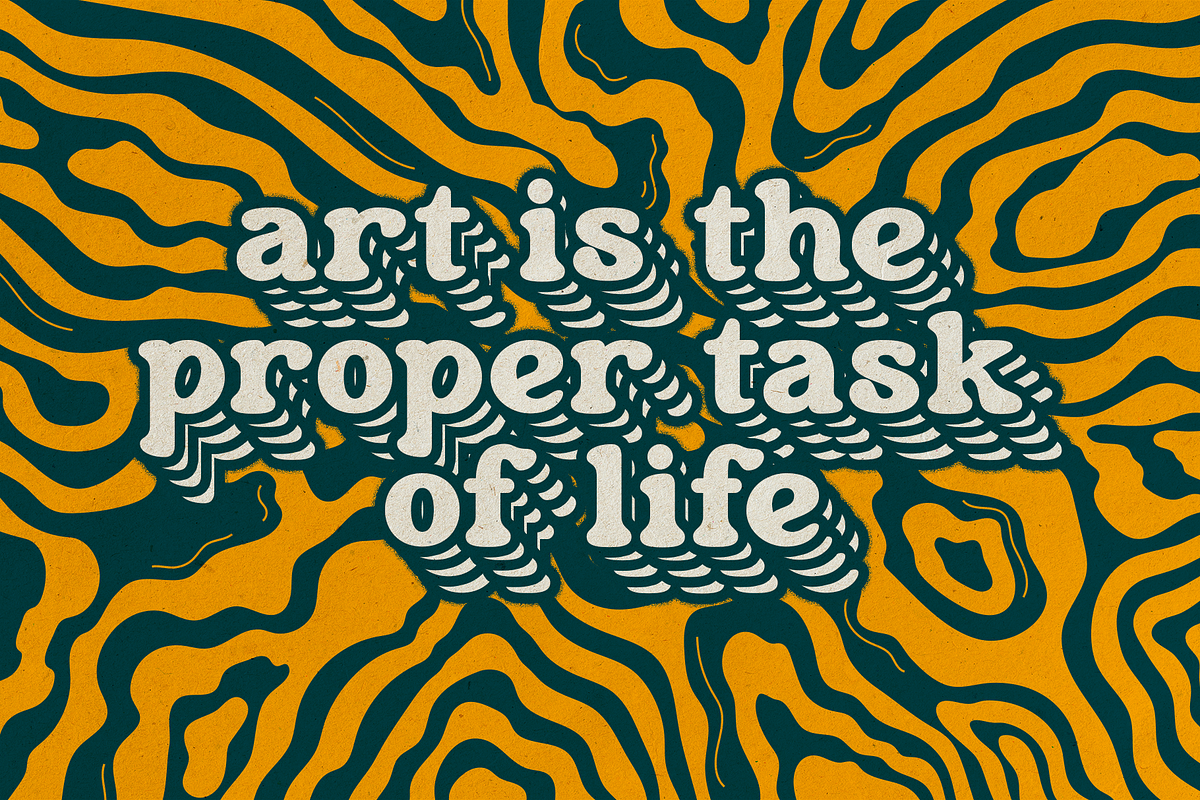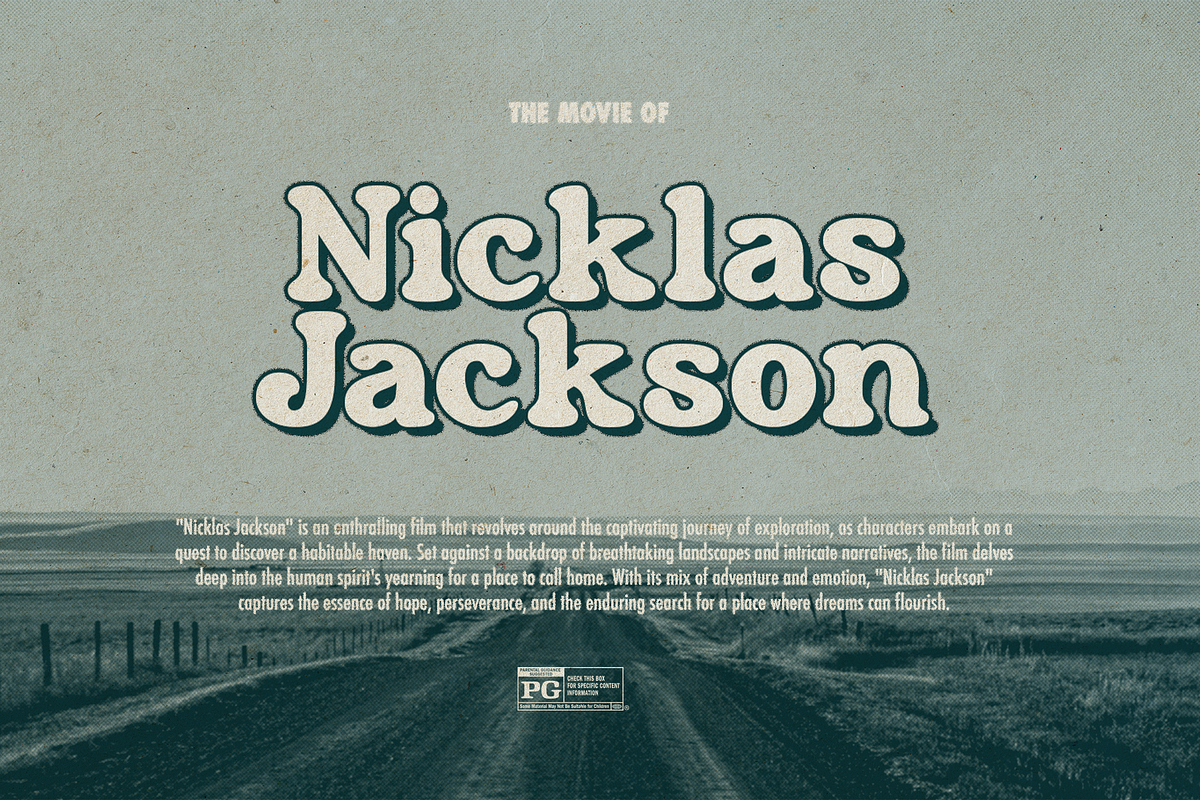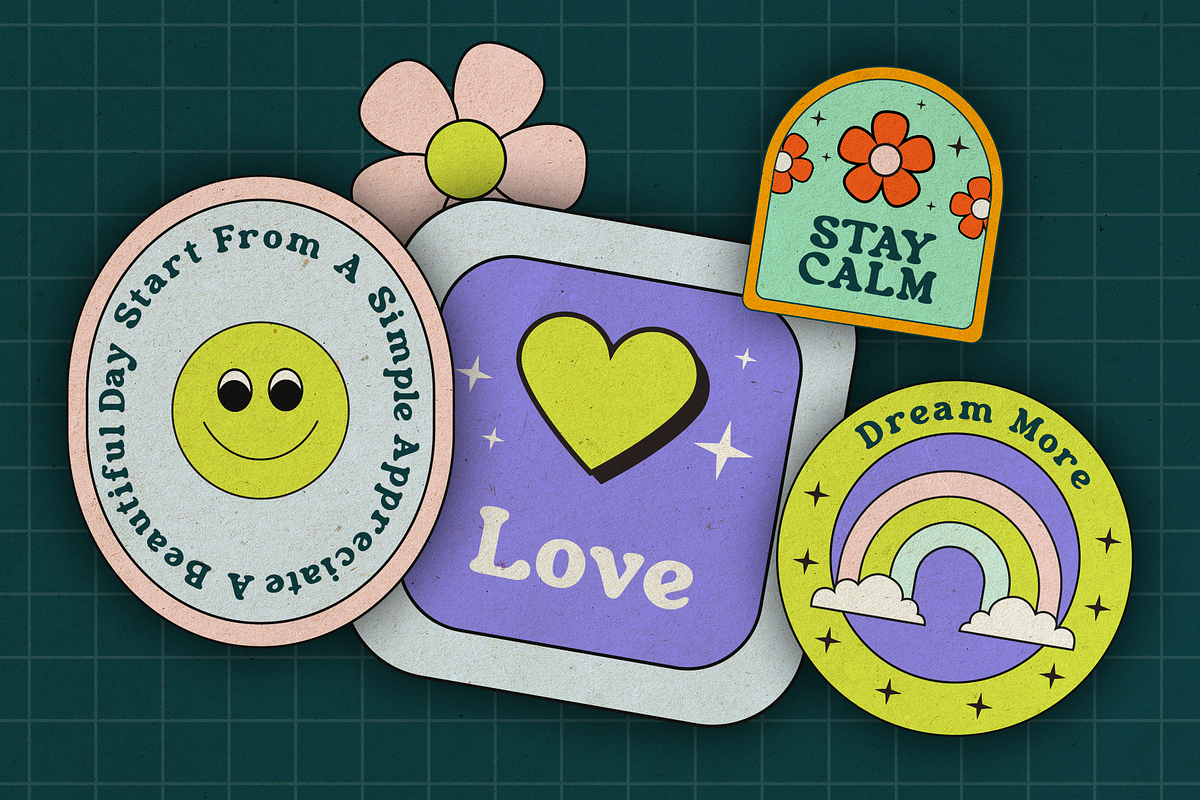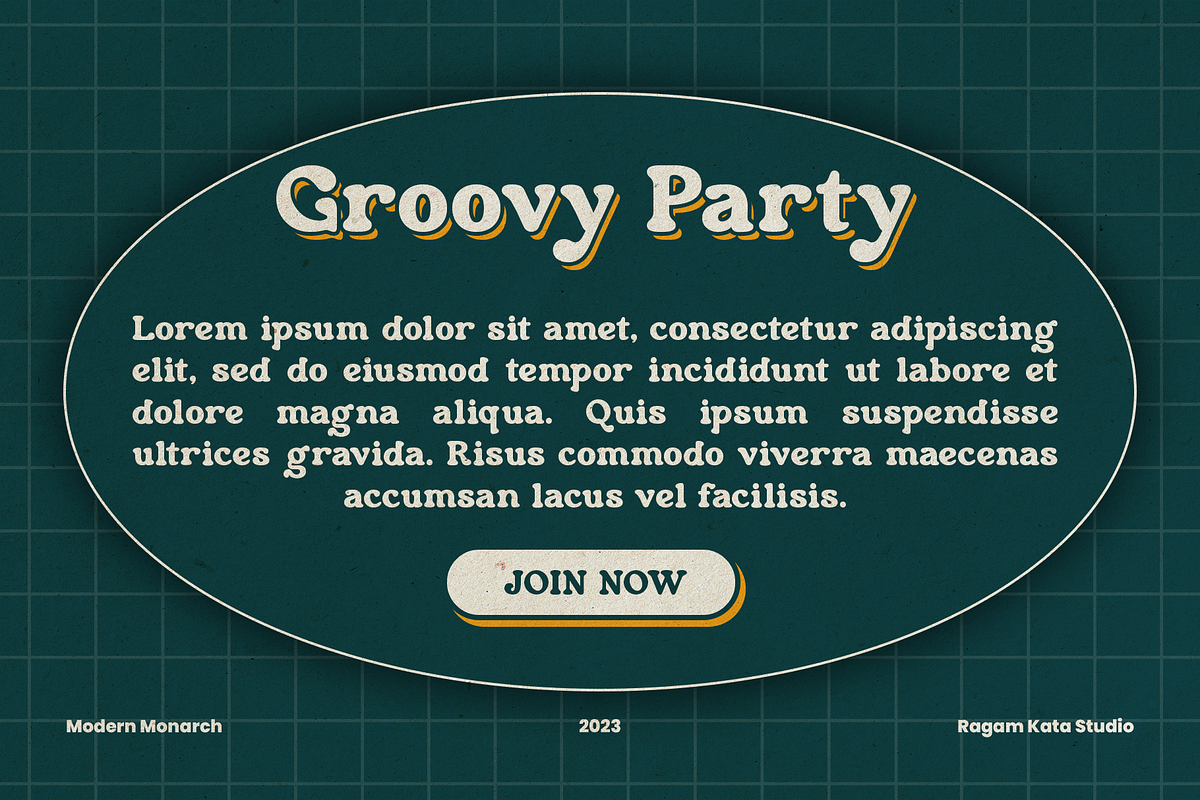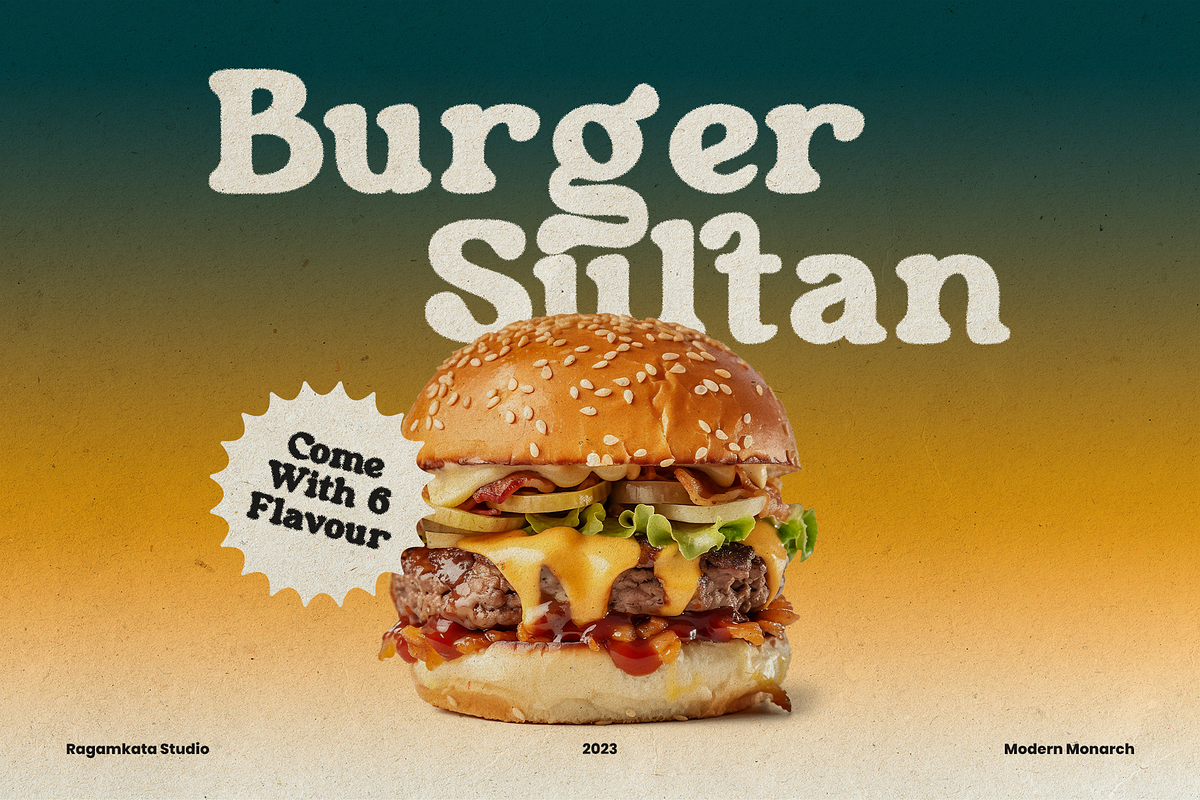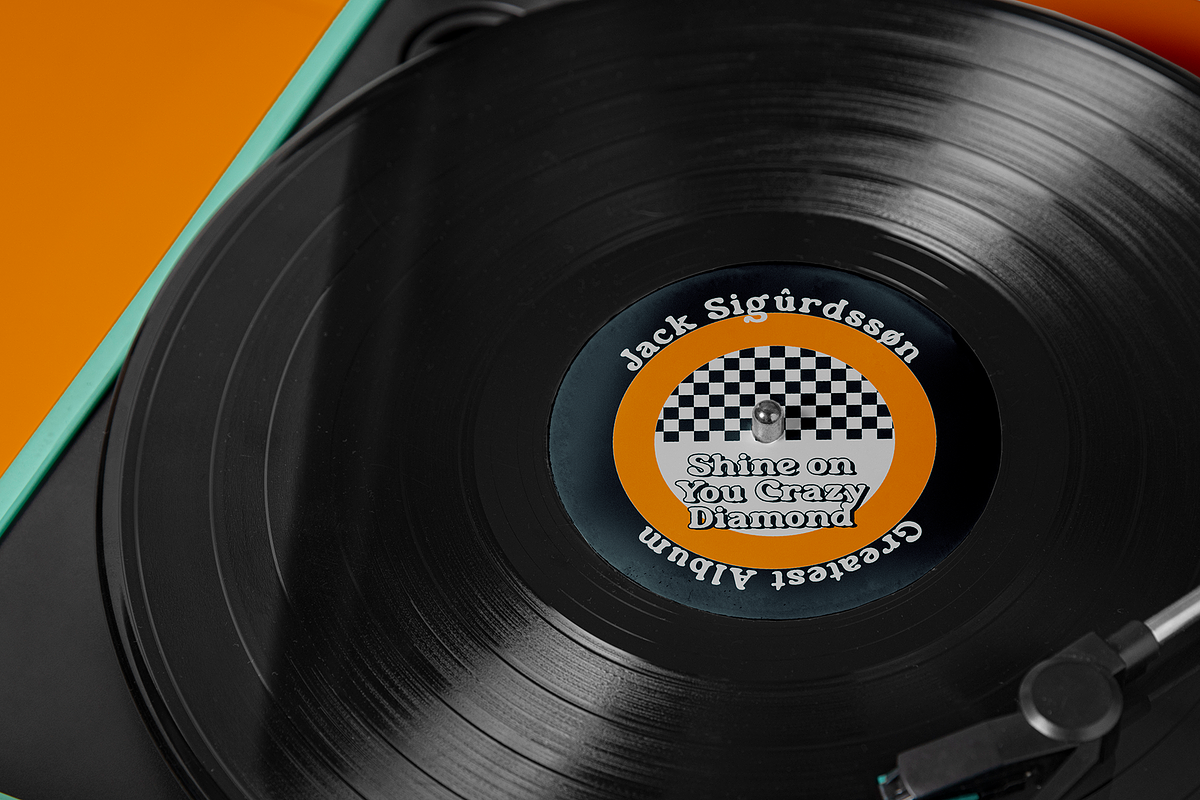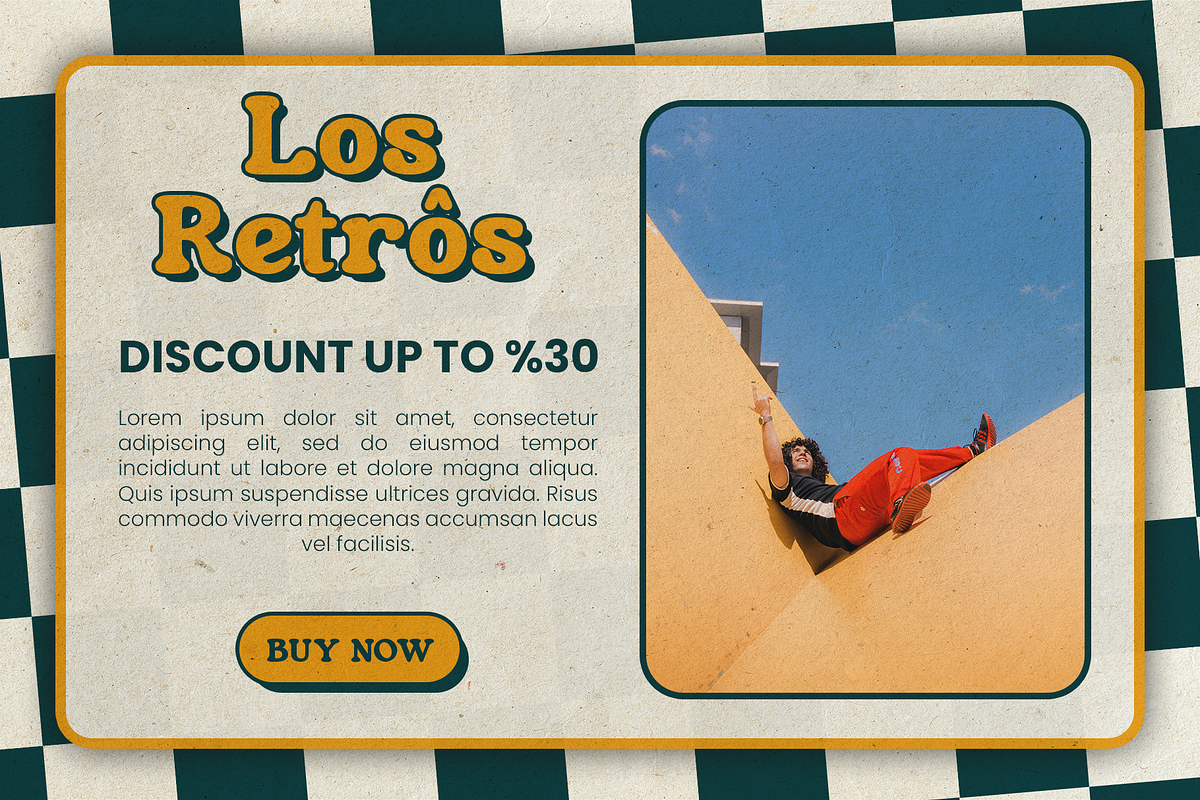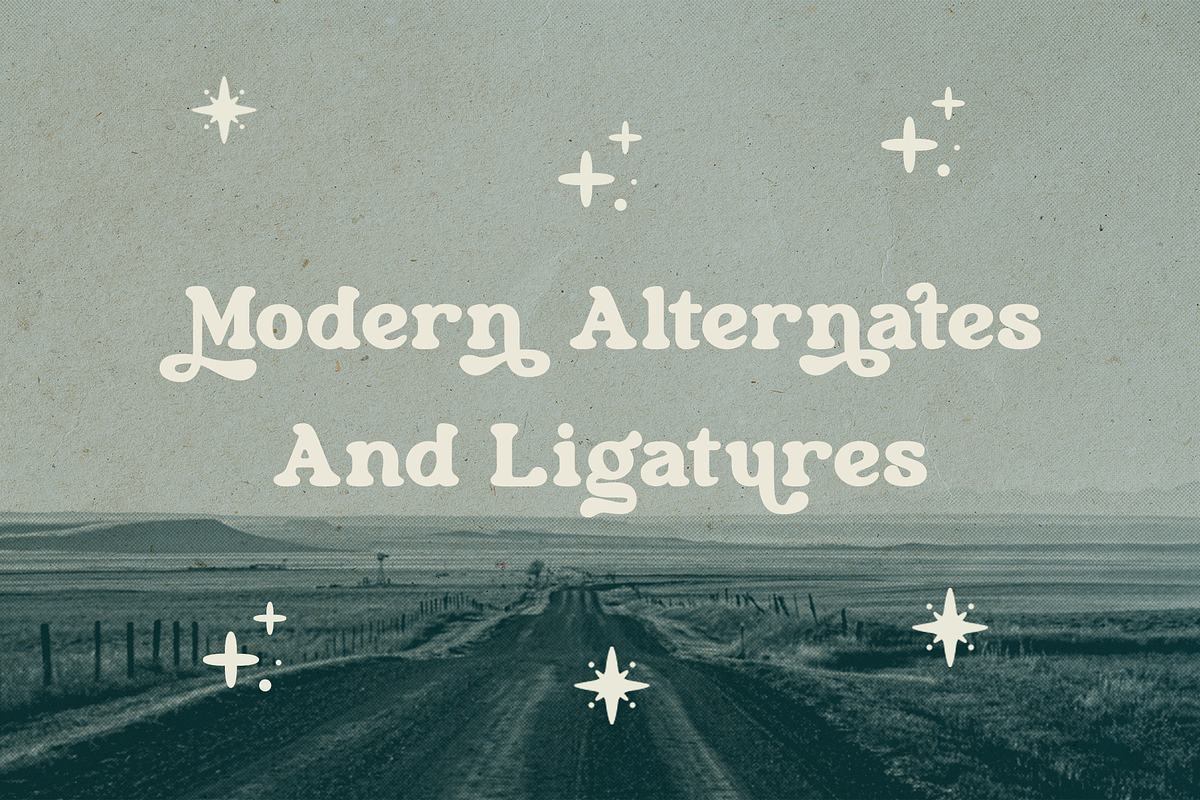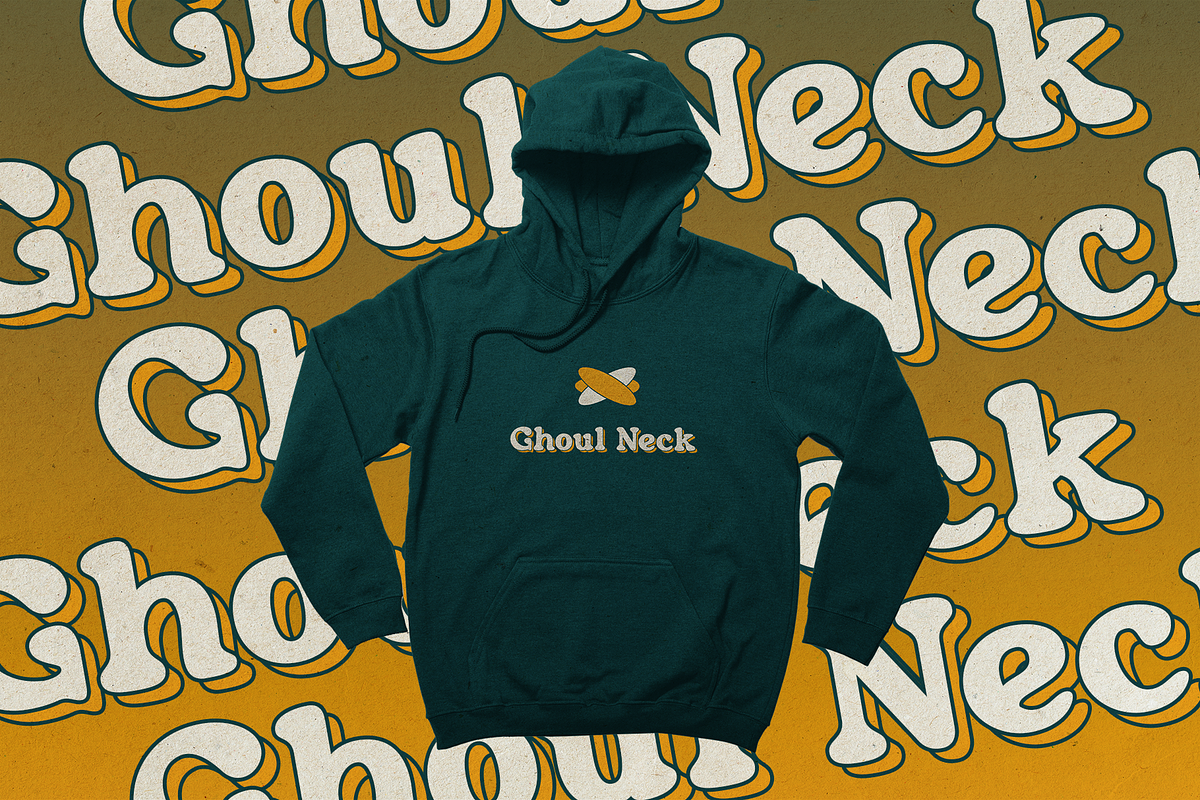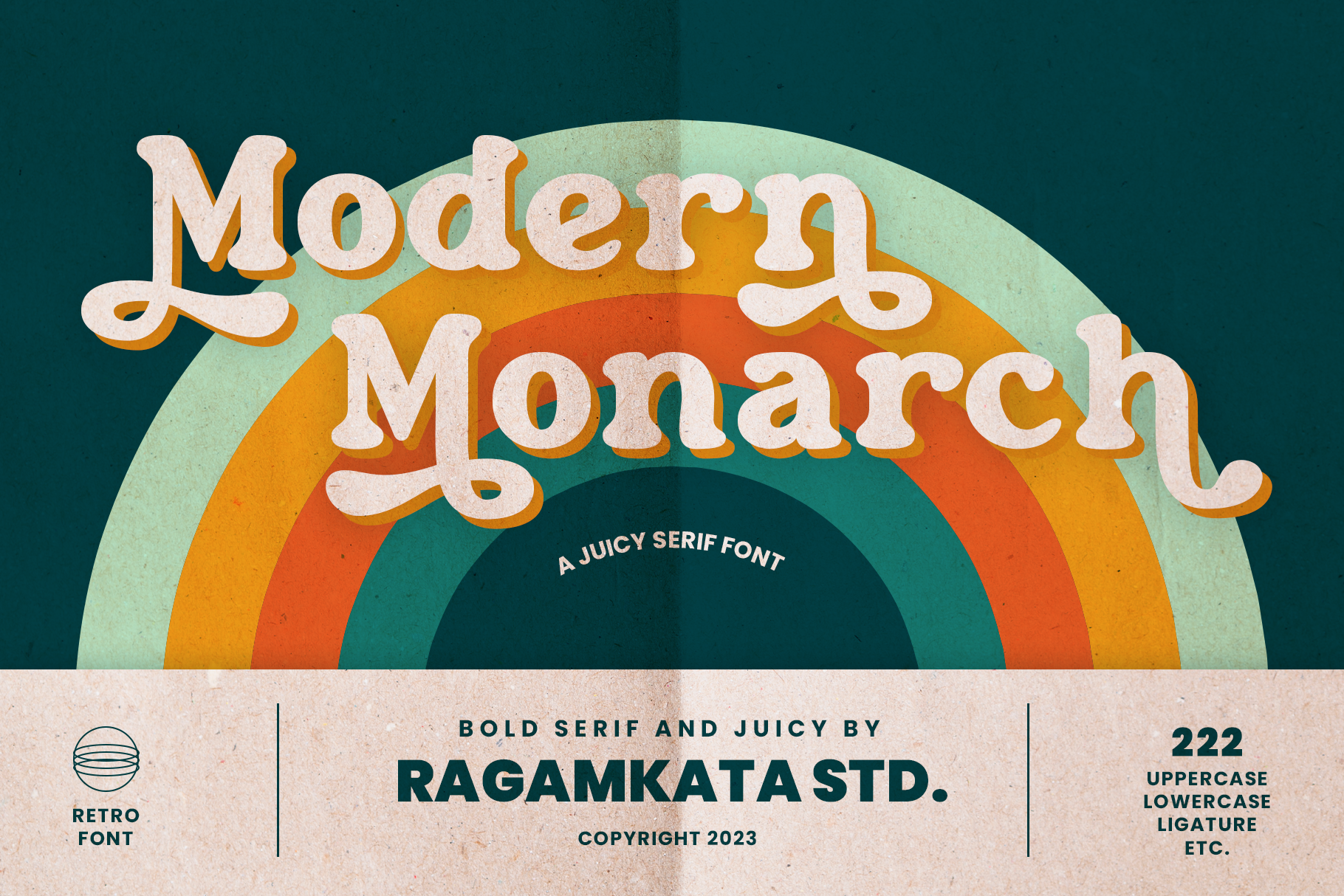
Modern Monarch - Retro Display Font
Modern Monarch is a retro display serif font that exudes a classic charm and bold character. With its design inspired by retro styles, this font brings an elegant touch and evokes a sense of the past. Each letter is meticulously crafted with careful attention to detail and proportion, resulting in a visually appealing and unique appearance.
Modern Monarch is perfect for projects that require a vintage feel, such as posters, logos, packaging, and promotional materials that aim to capture a nostalgic and sophisticated atmosphere. This font will add a special touch to your designs and captivate viewers with its retro allure and distinctiveness.
Modern Monarch Features:
- Uppercase And Lowercase
- Alternates And Ligatures